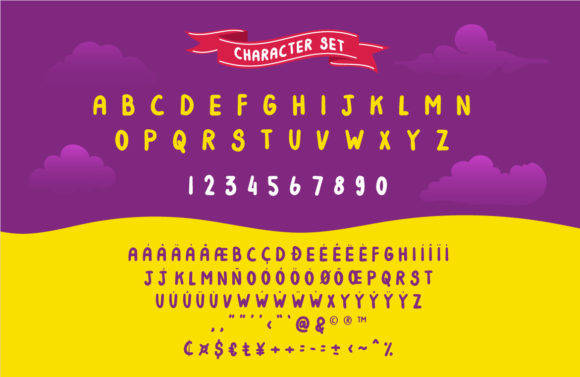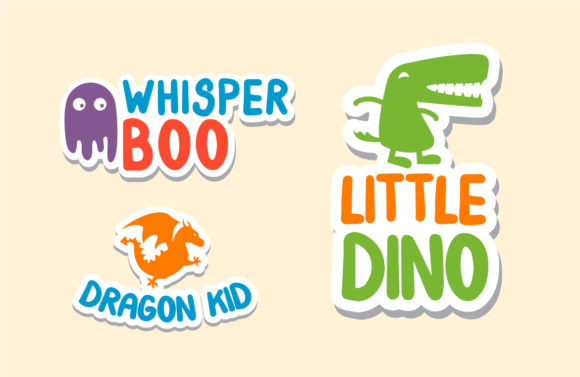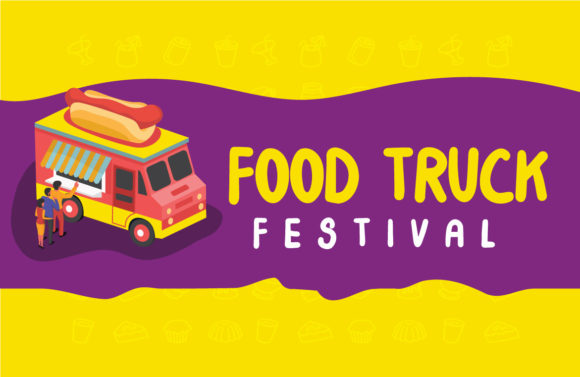
Introducing ChildCool Font: The Ultimate Display Font for Crafty Ideas
Are you a designer or crafter looking for a font that can add a touch of whimsy and fun to your projects? Look no further than ChildCool Font! This original display font is perfect for a wide range of crafty ideas, from letterheads and titles to stationery and more.
What is ChildCool Font?
ChildCool Font is a fun and whimsical display font that is sure to capture the attention of your audience. Its unique and playful design makes it perfect for projects that require a bit of personality and flair. Whether you’re working on a DIY craft project, a creative design project, or simply looking for a font to add some fun to your digital creations, ChildCool Font is the perfect choice.
Key Features of ChildCool Font
- Whimsical Design: ChildCool Font features a unique and playful design that is sure to add a touch of whimsy to your projects.
- Display Font: This font is specifically designed as a display font, making it perfect for titles, headings, and other large text elements.
- Easy to Read: Despite its playful design, ChildCool Font is easy to read, making it perfect for use in a variety of projects.
- Versatile: ChildCool Font can be used in a wide range of projects, from letterheads and titles to stationery and more.
Uses for ChildCool Font
ChildCool Font is a versatile font that can be used in a wide range of projects. Here are just a few ideas to get you started:
- Letterheads and Titles: Add a touch of whimsy to your letterheads and titles with ChildCool Font.
- Stationery: Use ChildCool Font to add some personality to your stationery, including greeting cards, invitations, and more.
- Craft Projects: ChildCool Font is perfect for use in DIY craft projects, such as scrapbooking, journaling, and more.
- Digital Creations: Add some fun and personality to your digital creations, including social media graphics, blog posts, and more.
Why Choose ChildCool Font?
There are many fonts to choose from, but ChildCool Font stands out from the crowd. Here are just a few reasons why:
- Unique Design: ChildCool Font features a unique and playful design that is sure to capture the attention of your audience.
- High-Quality: This font is designed to be high-quality and easy to read, making it perfect for use in a variety of projects.
Tips for Using ChildCool Font
Here are a few tips for using ChildCool Font in your projects:
- Use it as a Display Font: ChildCool Font is specifically designed as a display font, so use it to add emphasis and personality to your titles and headings.
- Experiment with Colors: ChildCool Font looks great in a variety of colors, so don’t be afraid to experiment and find the perfect color for your project.
- Pair it with Other Fonts: ChildCool Font pairs well with a variety of other fonts, so try pairing it with some of your favorite fonts to create a unique look.